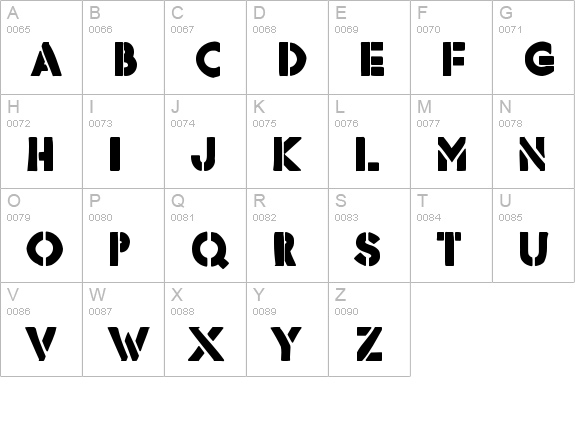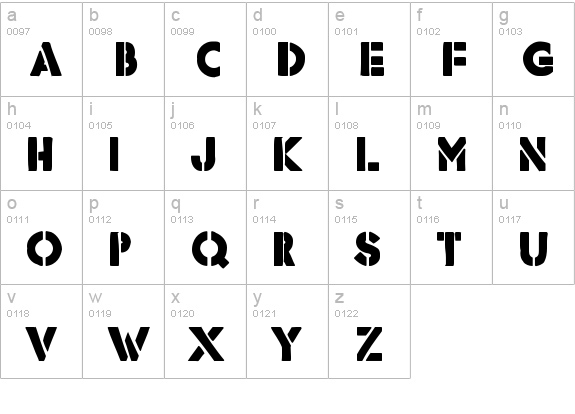
Rafika Font Details
Introducing Rafika, a stunningly unique and captivating font that will add a touch of elegance and sophistication to any design project. This one-of-a-kind typeface is meticulously crafted to exude a sense of modernity and versatility, making it perfect for everything from logos and branding to headlines and editorial layouts. With its sleek and stylish letterforms, Rafika effortlessly combines classic appeal with a contemporary twist, making it the ideal choice for those who seek a font that stands out from the crowd. Its smooth curves and graceful lines create a sense of fluidity and movement, while its generous spacing ensures optimal legibility and readability in any size or context. But what truly sets Rafika apart is not only its exceptional design, but also its availability. This incredible font is available for free download exclusively at FontsMarket.com. Yes, that's right – you can enhance your creative projects with this remarkable typeface without spending a penny. It's a rare opportunity to access a high-quality font that offers such beauty and versatility at absolutely no cost. So why wait? Take advantage of this amazing offer and unlock the full potential of your designs with Rafika font. Whether you're a graphic designer, a web developer, or a creative enthusiast, this font will empower you to create eye-catching visuals that leave a lasting impression. Download Rafika for free at FontsMarket.com today and let your creativity soar to new heights.